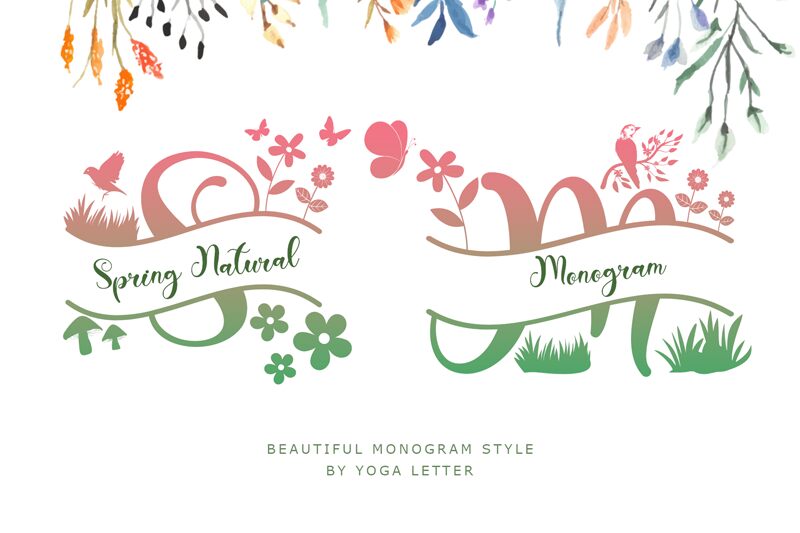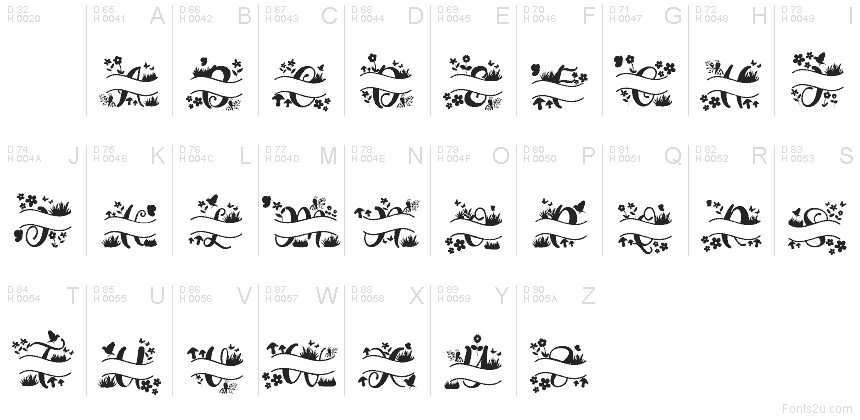
Spring Natural Monogram
Spring Natural Monogram font by Yoga Letter is a free decorative calligraphy typeface that turns initials into little works of art. Each letter curls with leafy flourishes and looping strokes, like inked vines climbing across the page. The texture feels soft and hand-drawn rather than polished and digital, giving monograms, short words, and key phrases a romantic, garden-party elegance.
Using Spring Natural Monogram, you can craft dreamy wedding invitations, bridal shower suites, boutique logos, product packaging, social media quotes, and stationery sets that feel lush and personal. This free font shines at larger sizes where its tiny curls and botanical details can breathe. Pair it with a clean sans serif for supporting text to keep your layouts airy and readable while the monogram takes center stage.